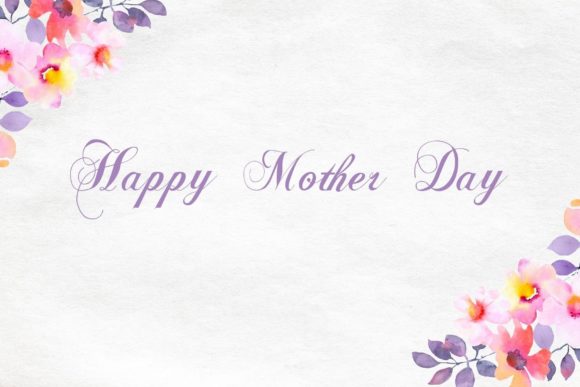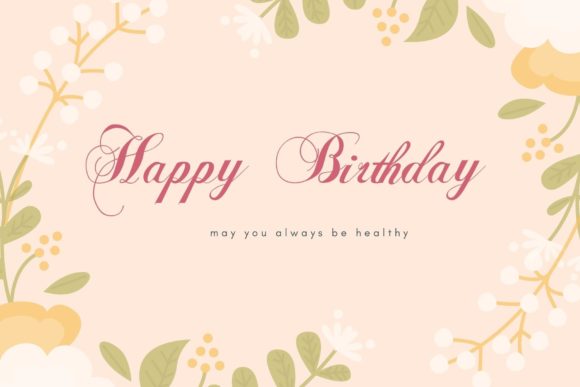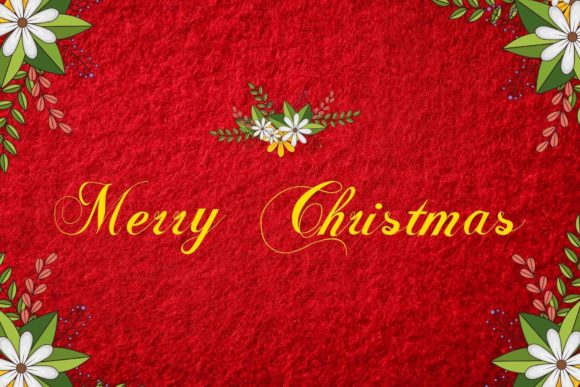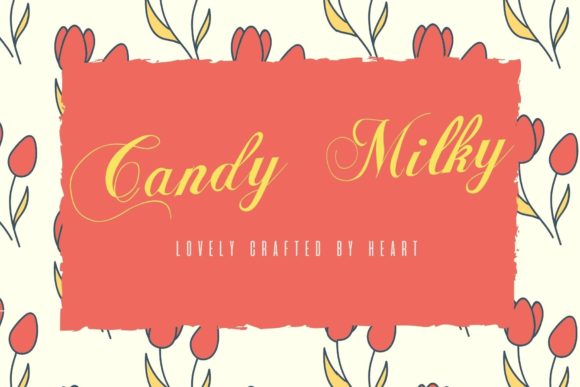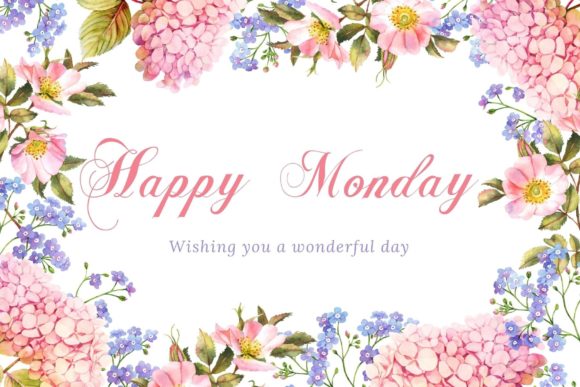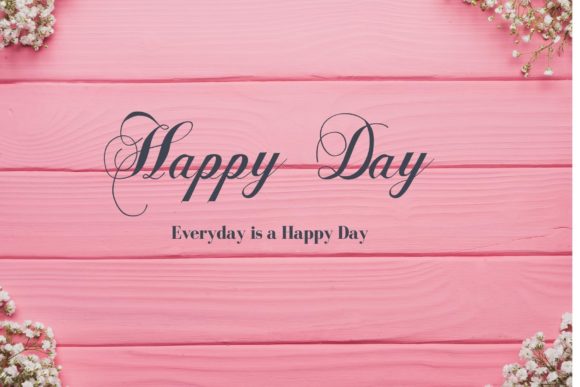
The Magic of Andaria Font: A Designer’s Delight
I still remember the time I was working on a wedding invitation project, and I just couldn’t find the perfect font to capture the elegance and romance of the occasion. My client was specific about wanting something stylish, yet delicate, and I was on a mission to deliver. That’s when I stumbled upon Andaria Font, and it was love at first sight! 💕
Andaria is a stylish and delicate script font that has won my heart with its authentic feel. In this article, I’ll share my experience with Andaria, its features, and how to make the most of it in your designs.
An Honest Review of Andaria Font
What I Love About Andaria ✨
- 💫 Elegant and sophisticated, perfect for wedding invitations, stationery, and social media posts
- ✅ Delicate and refined, with a touch of vintage charm
- 🎨 Highly versatile, suitable for a wide range of design projects
- 📚 Extensive character set, including glyphs and stylistic alternates
- ⚠️ May not be suitable for body text or large blocks of text, as it can be quite ornate
- ⚠️ Some users may find the font a bit too delicate for certain design applications
The Story Behind Andaria Font
Andaria Font was designed with the intention of creating a beautiful, elegant script font that captures the essence of traditional calligraphy. The designer aimed to create a font that would be perfect for special occasions, such as weddings and anniversaries, as well as for everyday design projects that require a touch of sophistication.
Q: What is Andaria Font best suited for?
A: Andaria Font is ideal for designs that require a touch of elegance and sophistication, such as wedding invitations, stationery, social media posts, and greeting cards.
Q: Is Andaria Font easy to read?
A: Andaria Font is a script font, and as such, it may not be suitable for large blocks of text or body text. However, it is highly legible and perfect for headlines, titles, and short paragraphs.